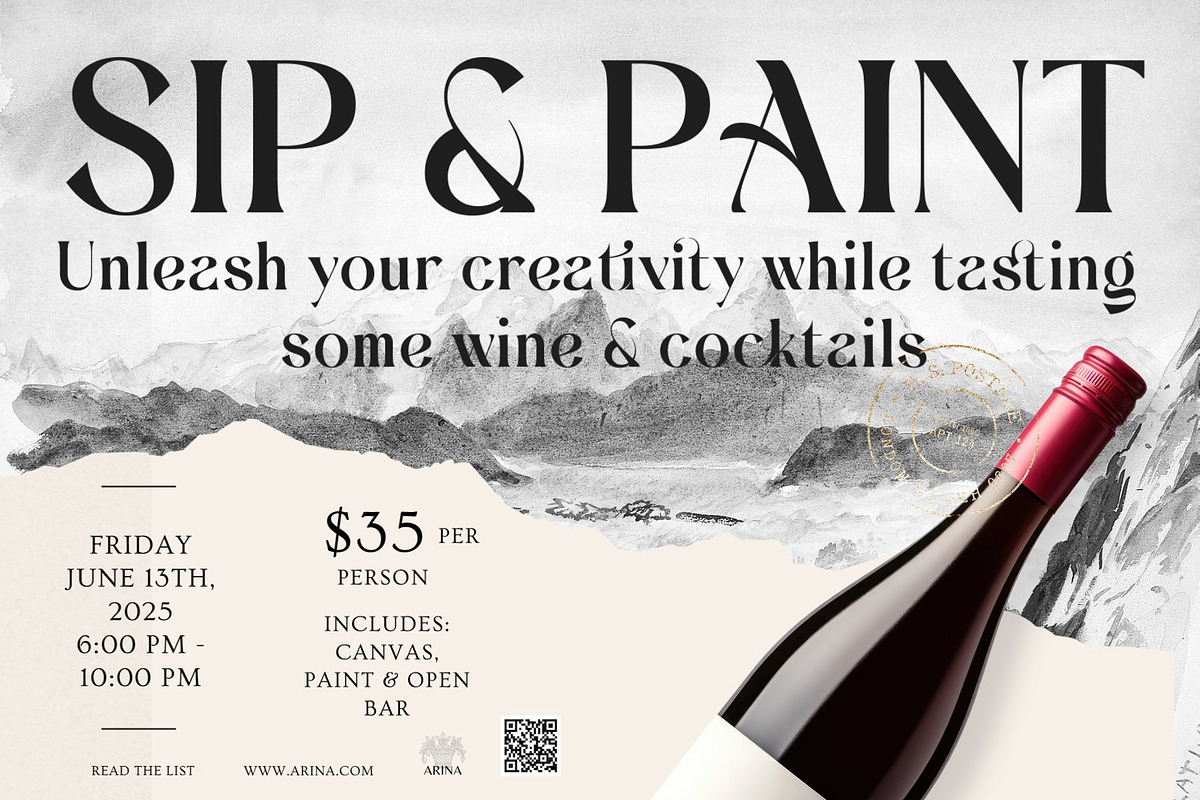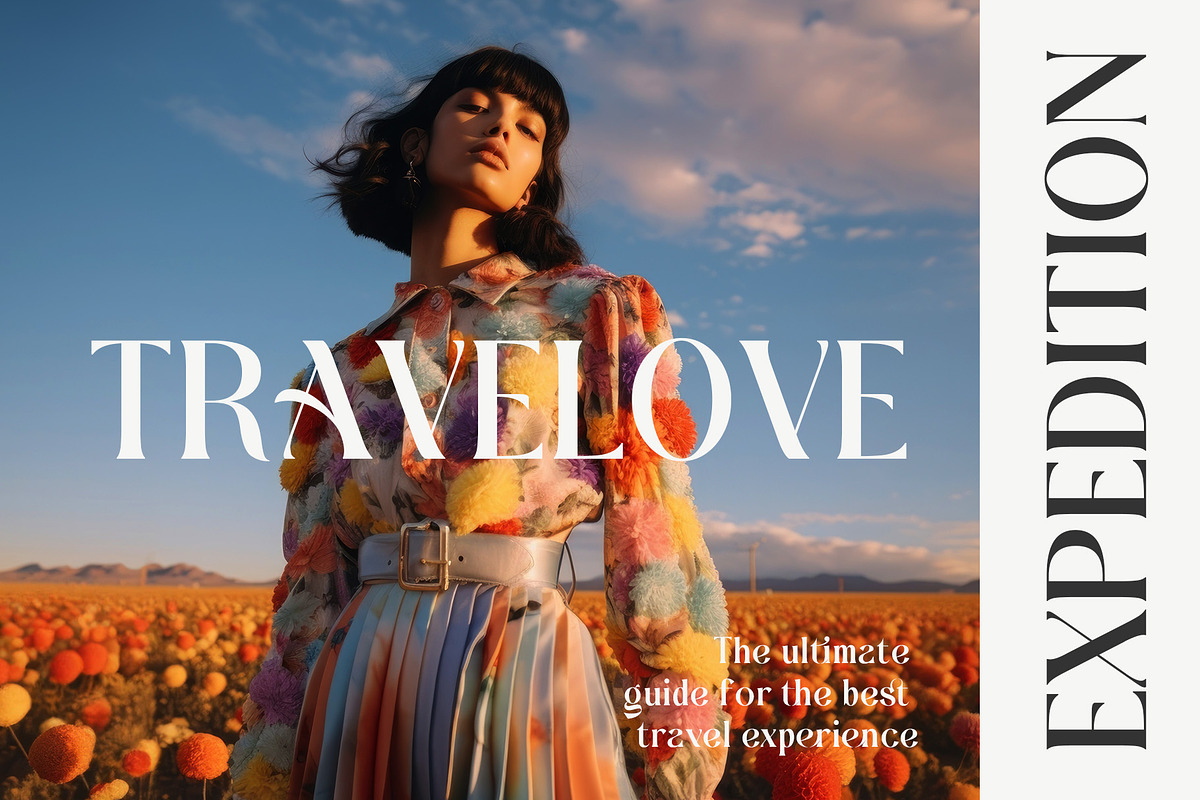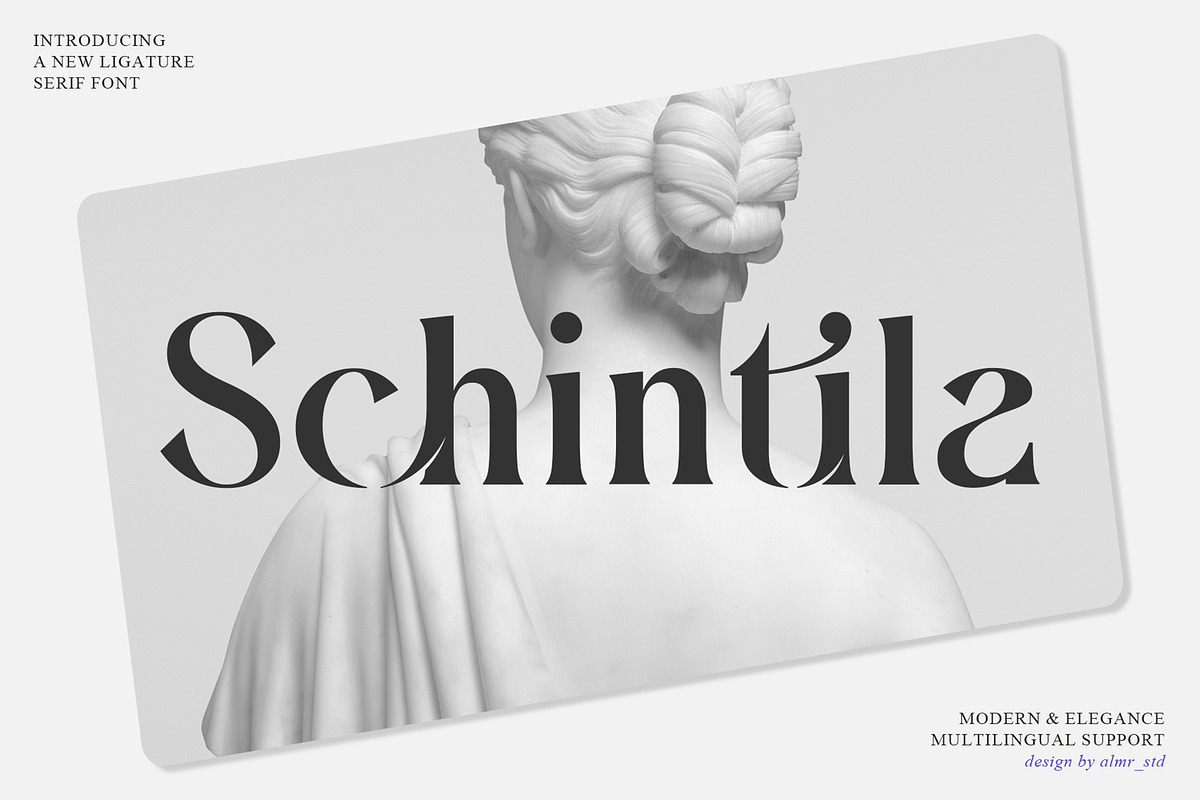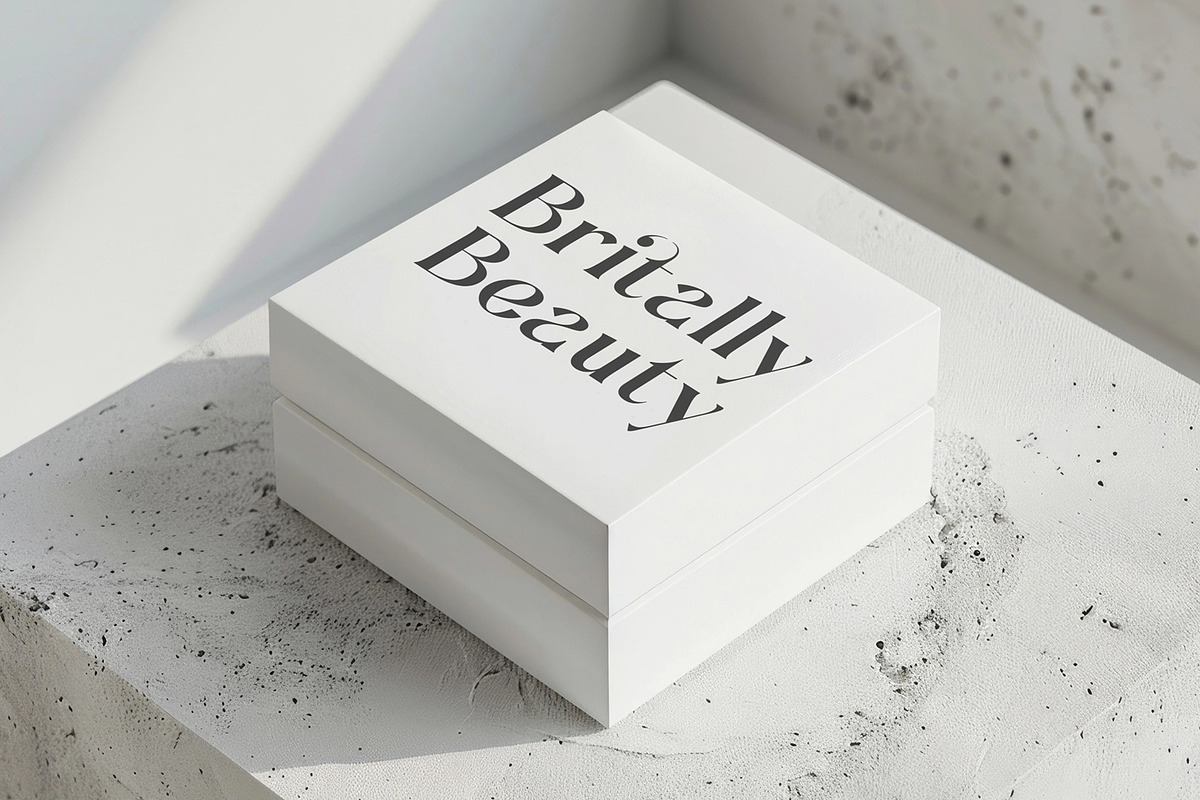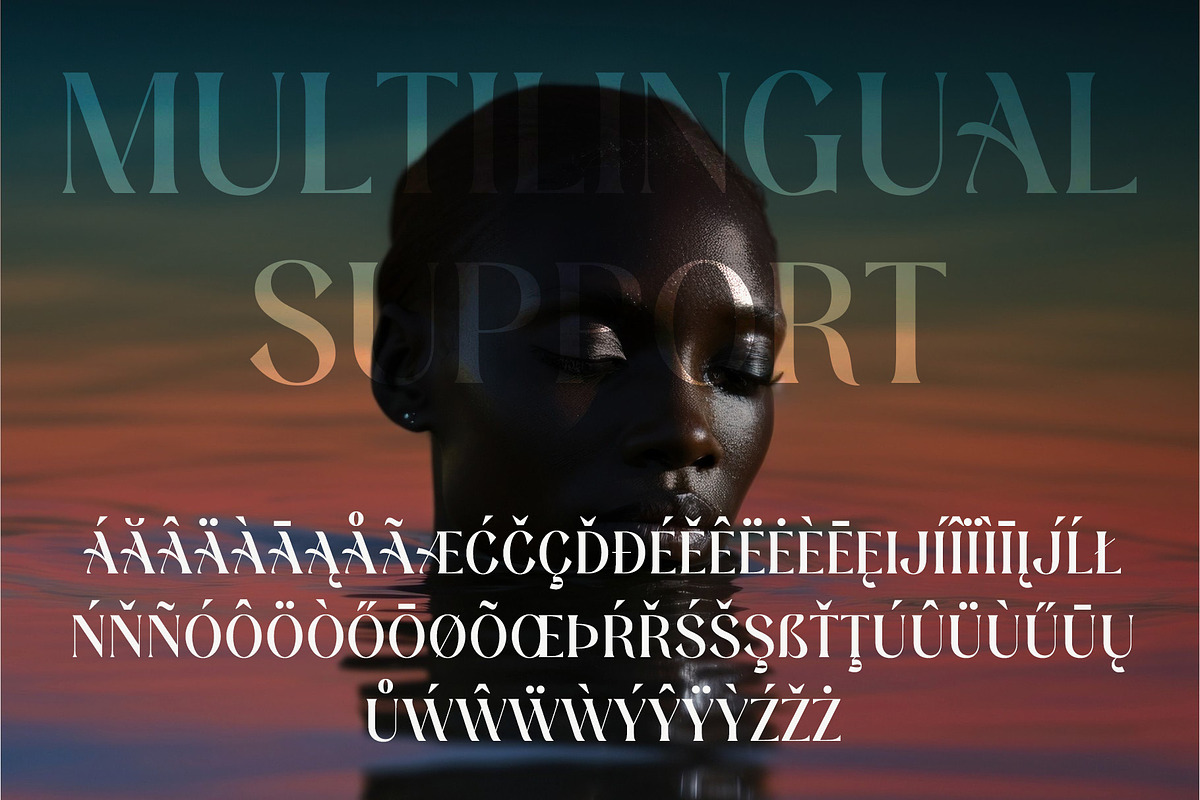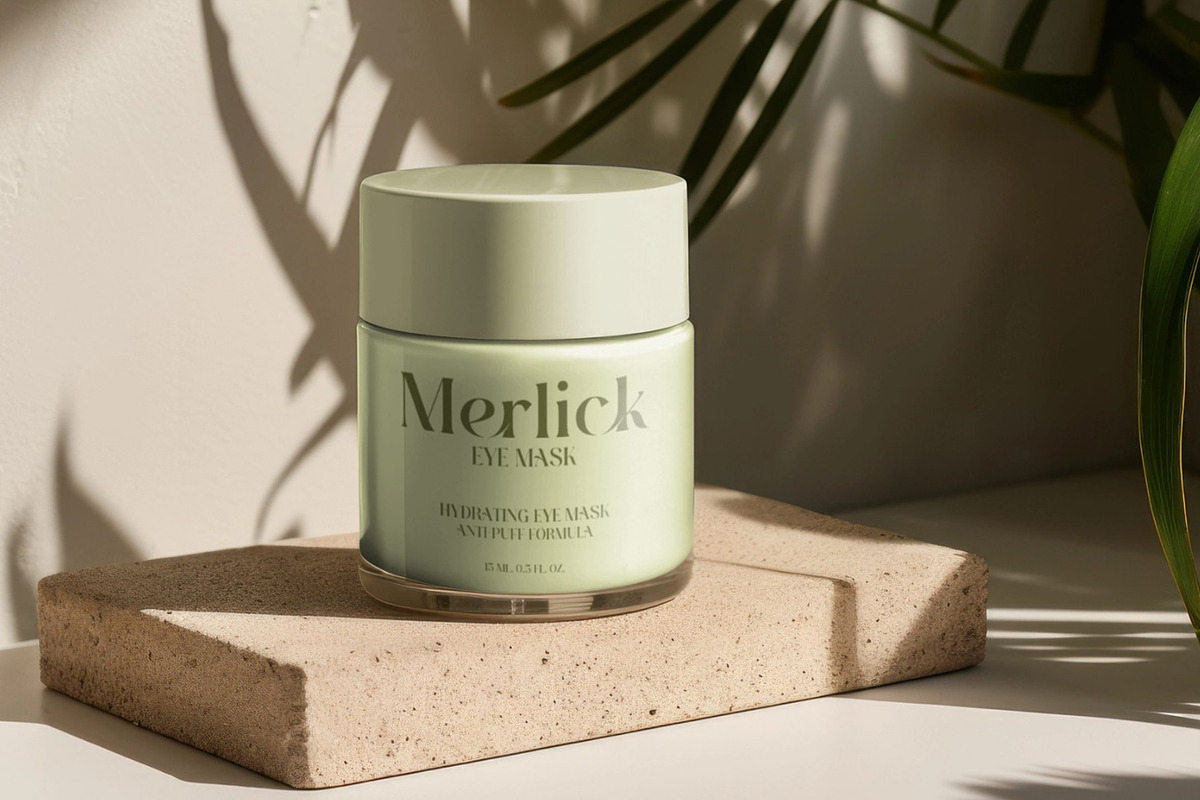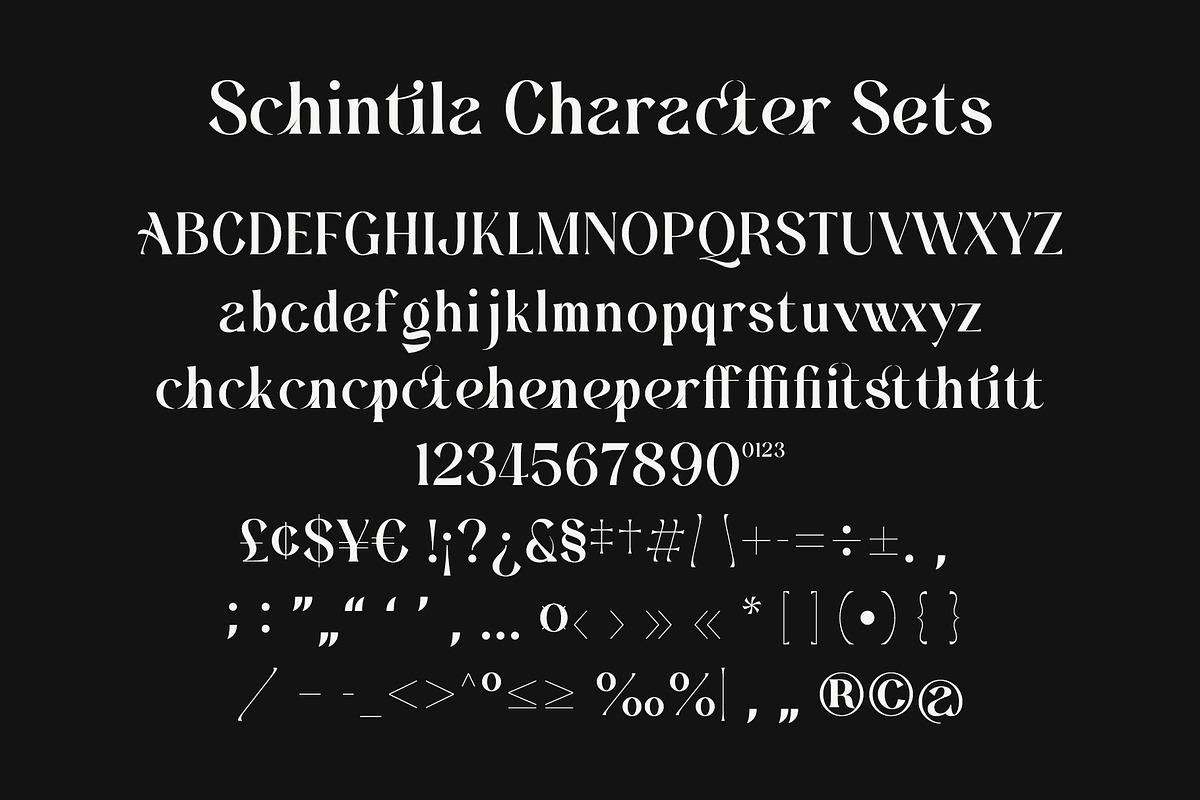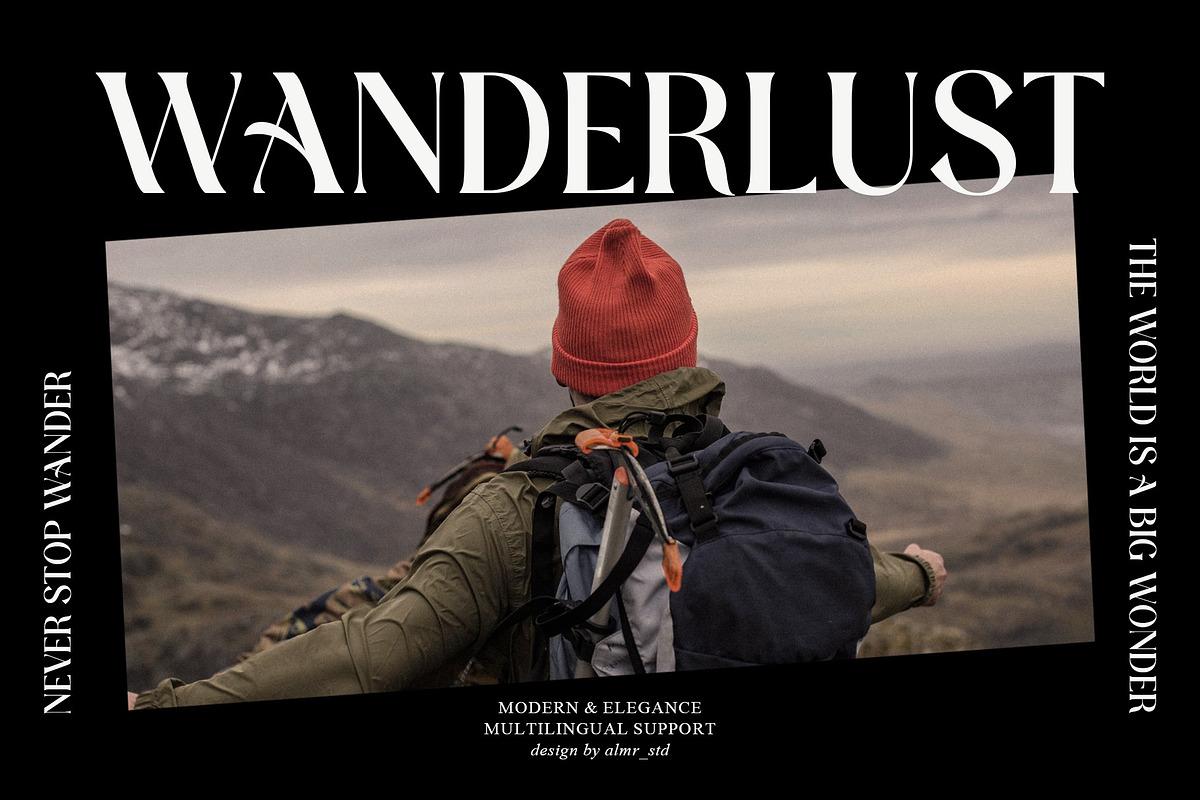
Schintila - Ligature Serif
Introducing Schintila - Ligature Serif Font. Schintila is a ligature serif font, This type of font is very suitable for your various needs such as branding projects, logos, social media posts, advertisements, labels, product packaging, photography, wedding designs, watermarks, invitation product designs, stationery, and any project.